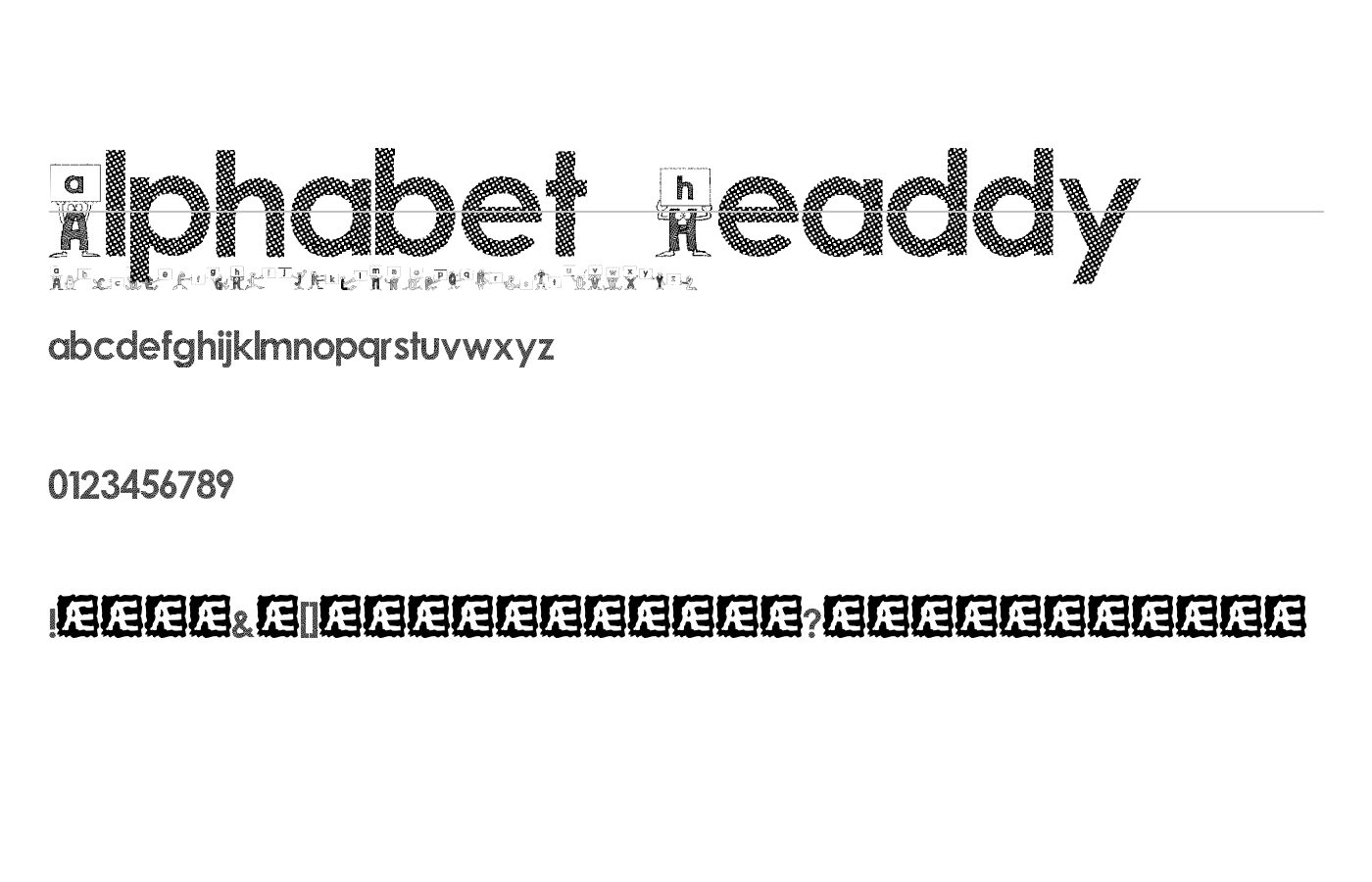
Alphabet Headdy is a clean and modern sans serif font characterized by its medium weight and balanced proportions. The design features simple, geometric letterforms with a consistent stroke width, giving it a friendly and approachable feel ideal for headlines, logos, and contemporary branding. Its clear readability and straightforward style make it versatile for use in digital and print media where clarity and a modern look are essential.
Alphabet Headdy Font